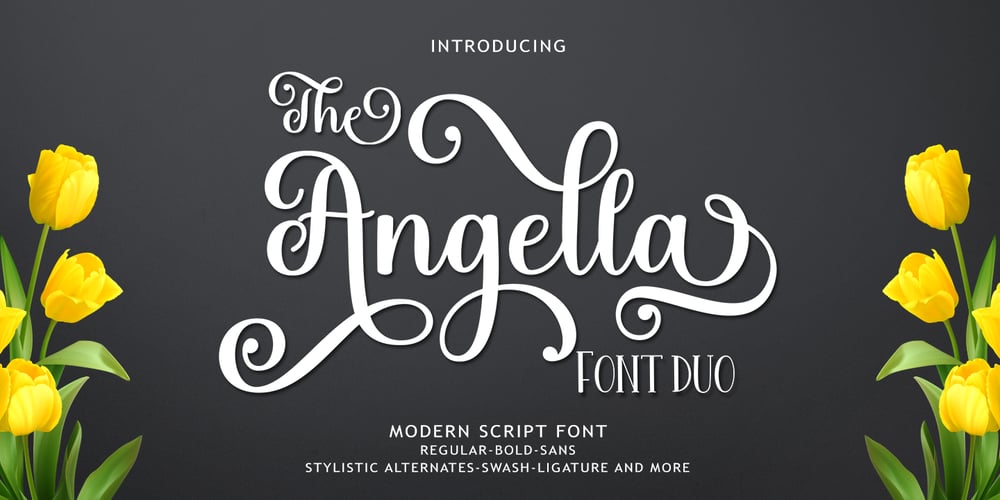
The Angella Script Duo
The Angella Script Duo font
The Angella Script Duo Font Family was designed by Zaki Muhammad and published by madjack.font. The Angella Script Duo contains 3 styles and family package options. The Angella Script Duo is a hand brush font created with brush and ink. This typeface is ideal for use in bold watercolour designs or handwritten styles, such as blog titles, posters, wedding elements, t-shirts, clothing, book covers, business cards, greeting cards, branding, merchandise, etc.Contains the complete set:- Uppercase- Lowercase- alternative- fasteners- Punctuation- number- Multilingual support.How to access all alternative characters, using the Windows Character Map with Photoshop:- https://www.youtube.com/watch?v=Go9vacoYmBwHow to access all alternative characters using Adobe Illustrator:- https://www.youtube.com/watch?v=XzwjMkbB-wQ